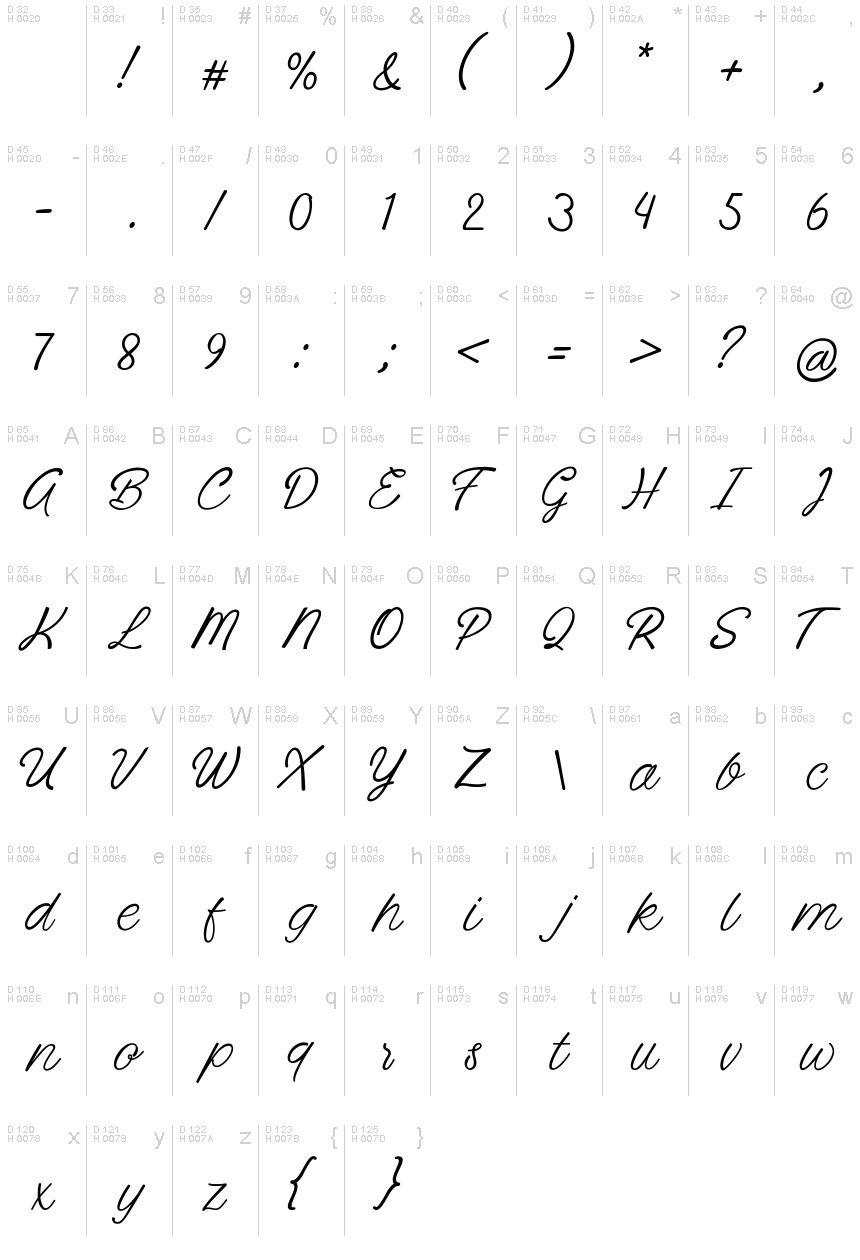
Rosellia Simone
Rosellia Simone font, designed by UI Creative, embodies the charm of handwritten elegance. Its flowing characters exude a sense of warmth and approachability, making it a delightful choice for personal notes or creative projects. The font's graceful curves and playful strokes stand out, inviting viewers to connect on an emotional level.
Visually captivating, Rosellia Simone features sweeping ascenders and descenders that lend a dynamic movement to text, striking a balance between sophistication and informality. This makes it perfect for wedding invitations, quotes, or branding that seeks to evoke intimacy.
Whether used in digital layouts or print designs, Rosellia Simone transforms ordinary text into extraordinary expressions of personality and style. Its unique characteristics ensure it will leave a lasting impression in any context.